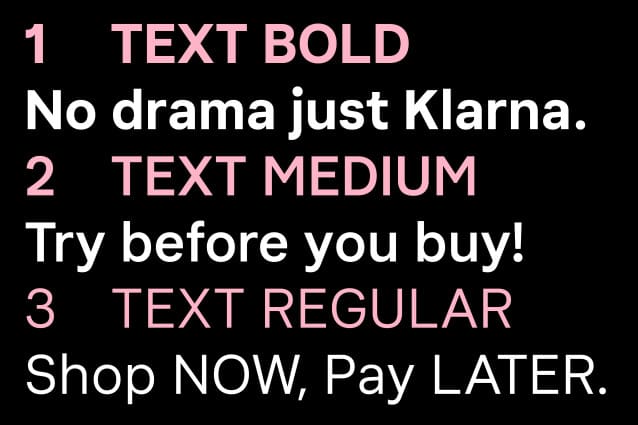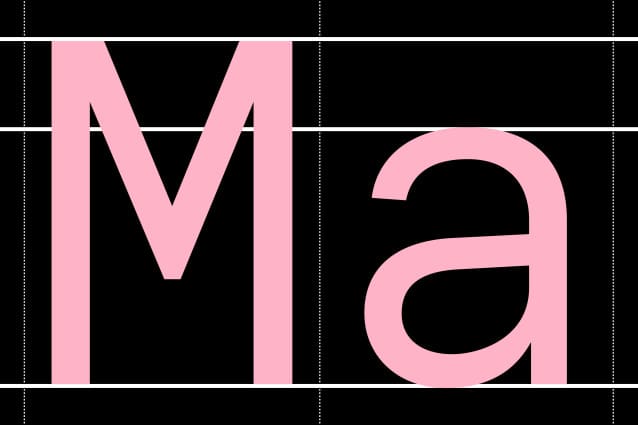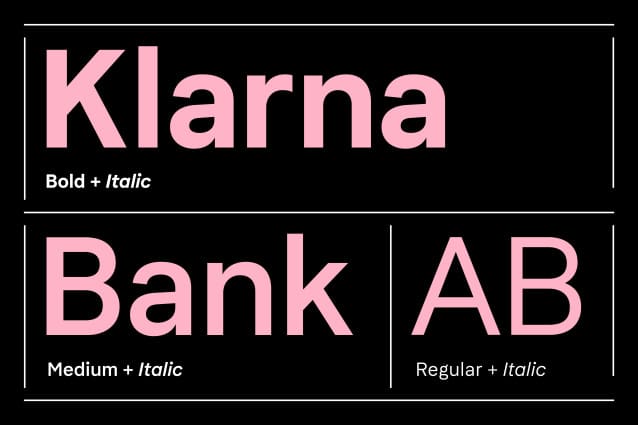
Klarna Font Family
Klarna Font Family is a sans serif  stunning when combined or separately. This sans serif font style is legible and stunningly designed.
Based in Sweden, Klarna is one of Europe’s largest banks and provides payment solutions for upwards of 80 million customers via 190,000 merchants across 17 countries. Klarna had previously commissioned a custom typeface, but over time and application felt that it wasn’t performing as required across the bank’s multiple platforms and locales. Looking to simultaneously refresh its typography programme and create an evergreen solution that was technologically sound, Colophon Foundry was approached to evaluate the existing offering and suggest a new approach.